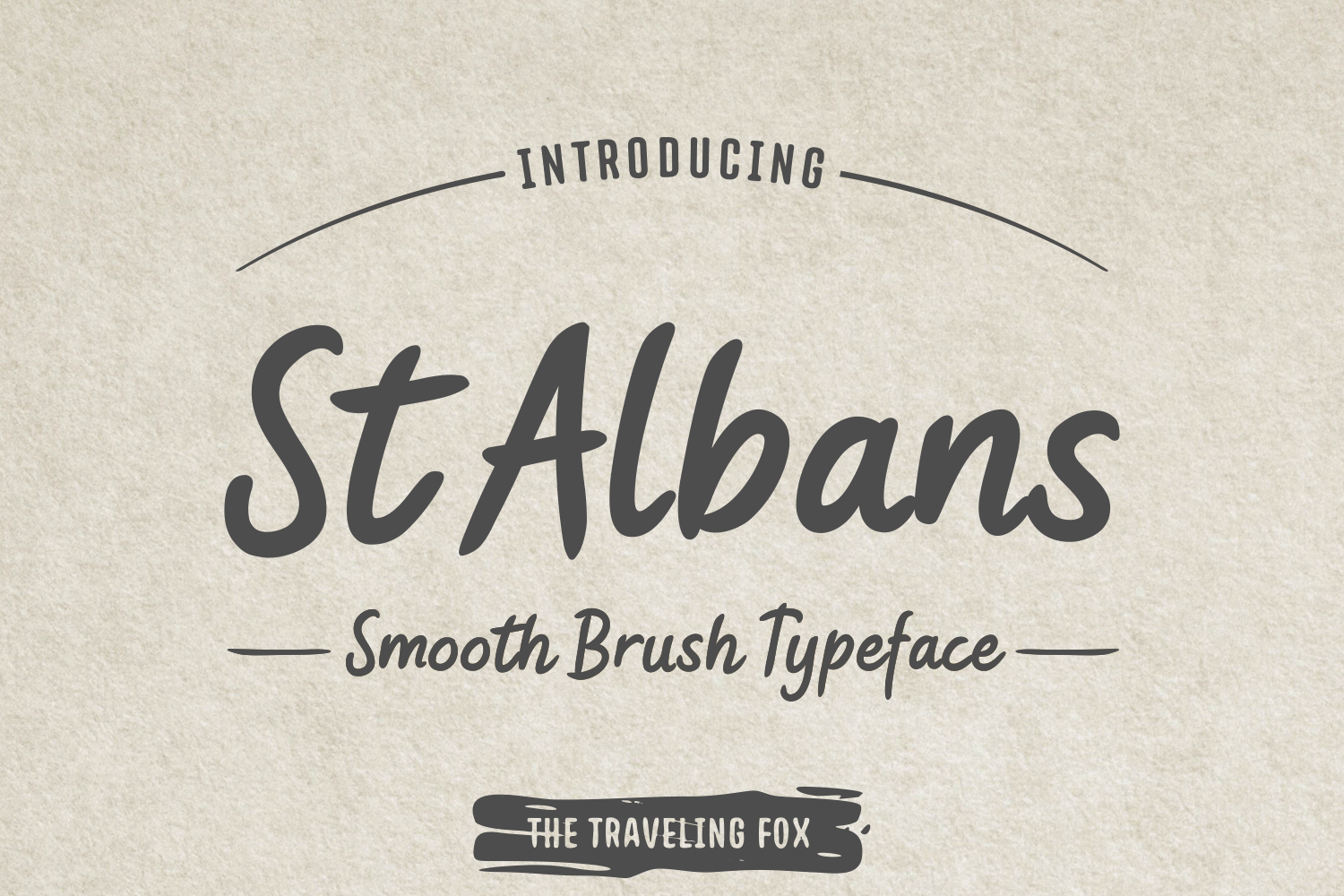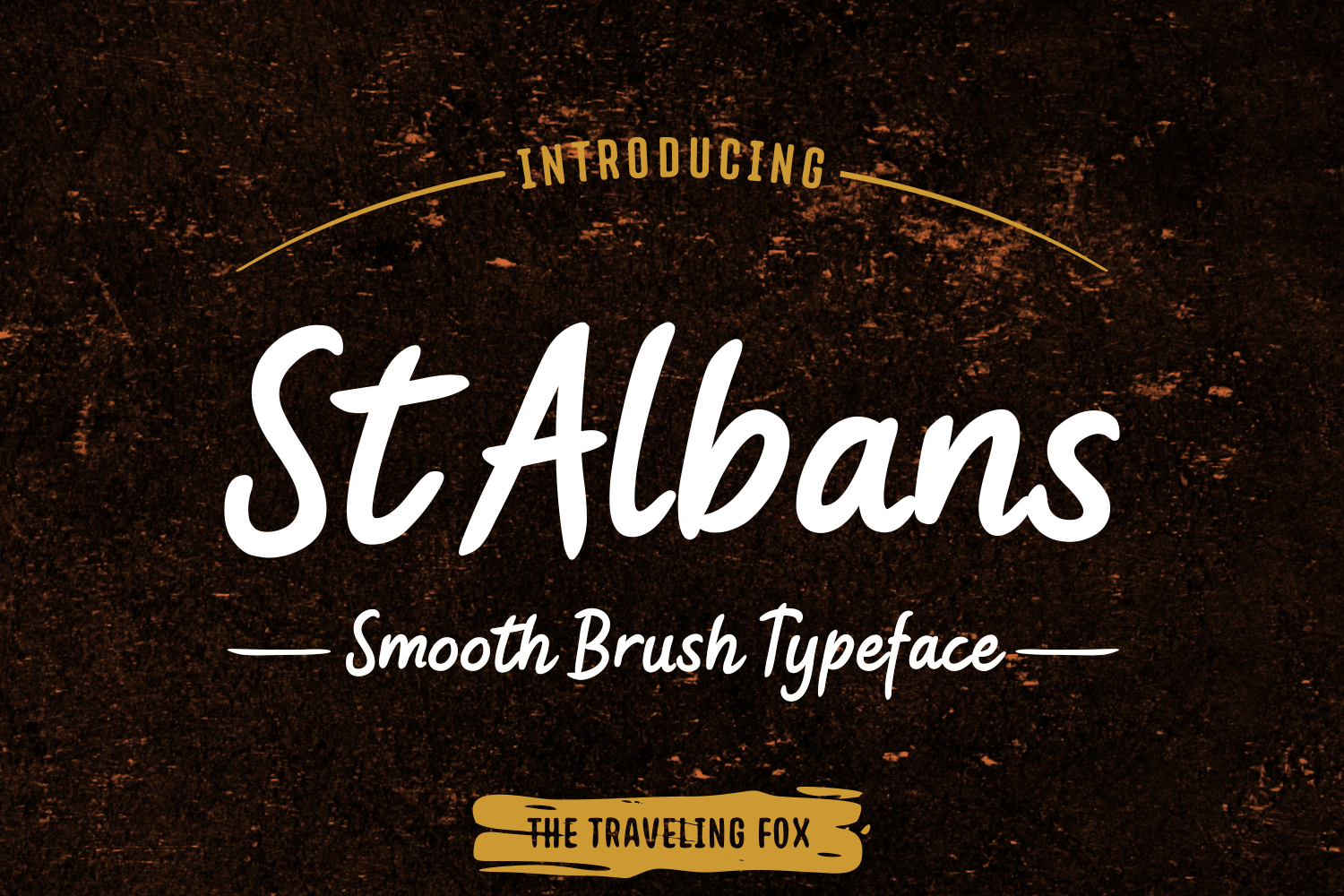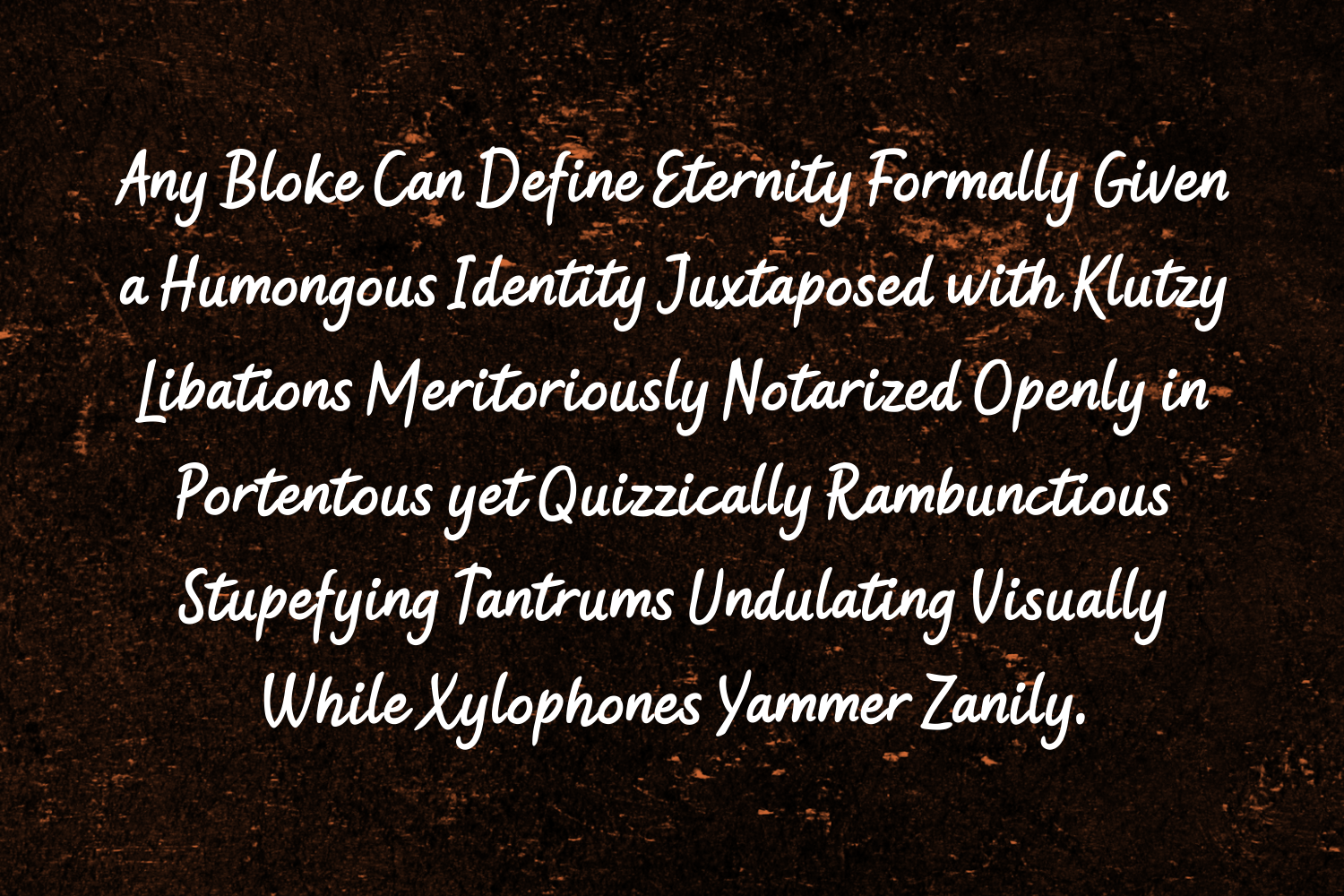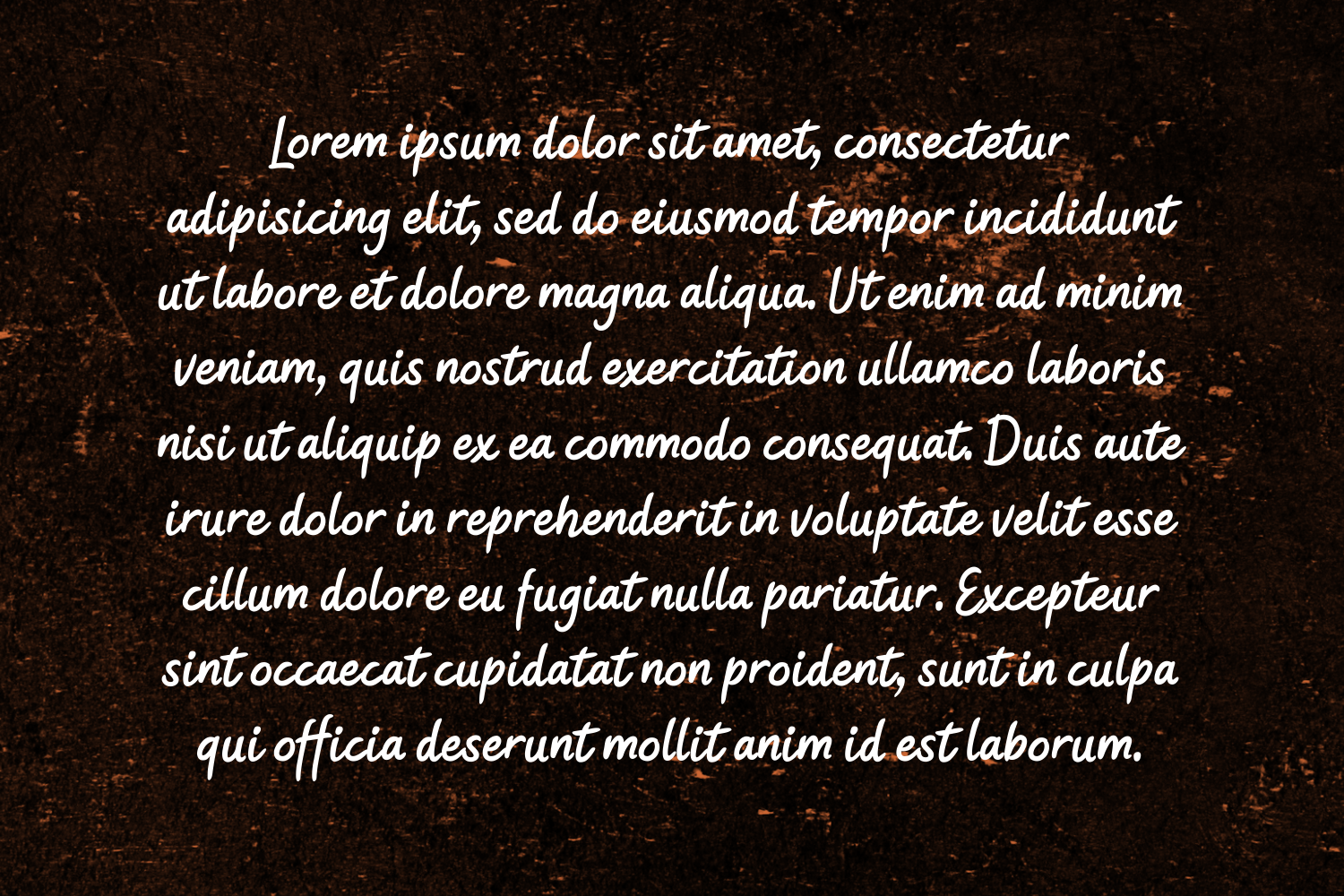
St Albans Font
About St Albans Font
St Albans is a wonderful brush typeface, handmade with delicacy and care. Great for a large range of uses, St Albans’ has a heavy weight and presence of structure.